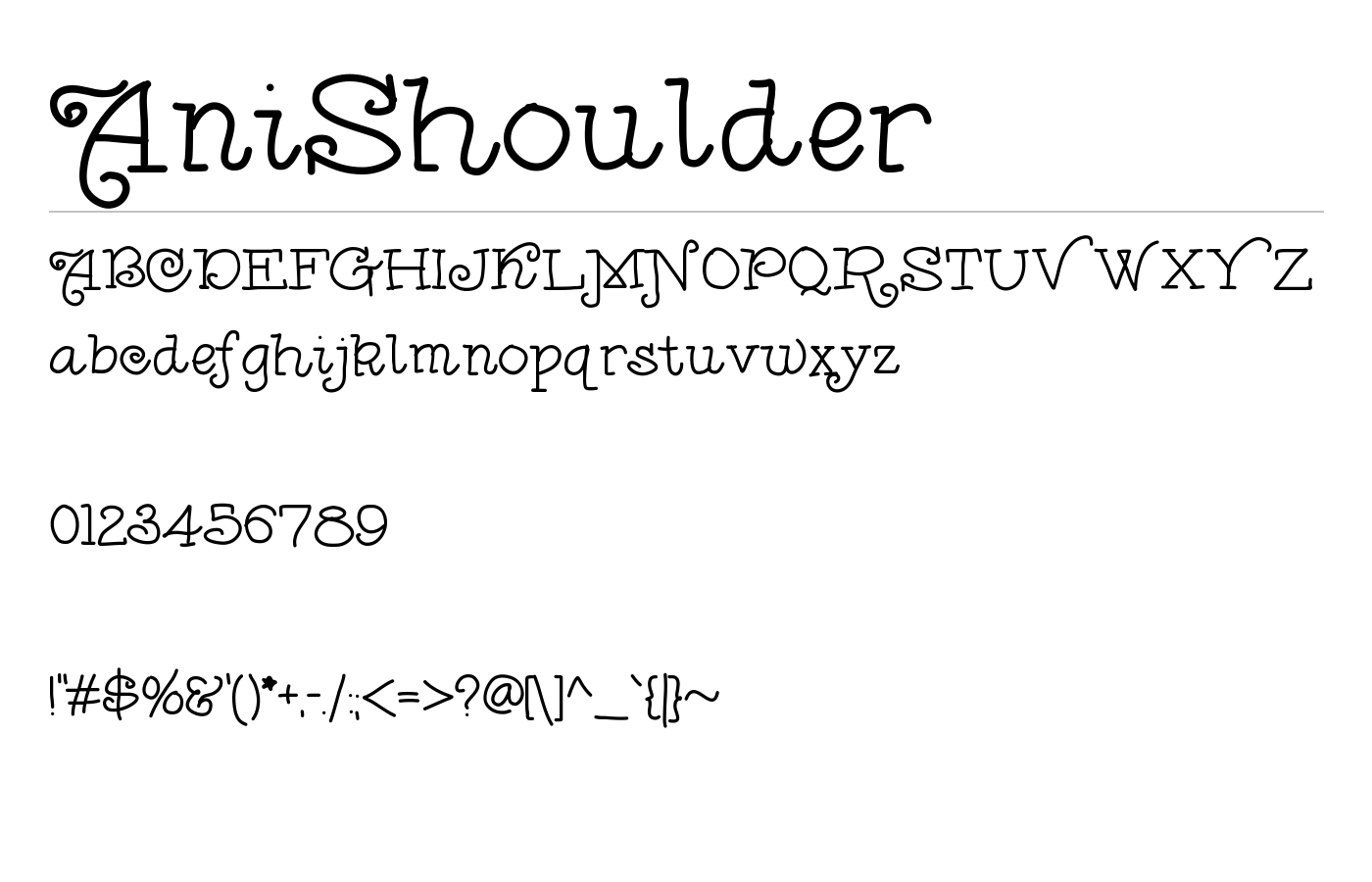
AniShoulder is a whimsical serif font with decorative, playful flourishes that give it a charming, handmade feel. Its light weight and medium width, combined with unique, curly details on letters and numbers, make it ideal for creative, fun projects like invitations, children’s books, or quirky branding. This font works best in headlines or short texts where its personality can shine without losing readability.
AniShoulder Font
About AniShoulder Font